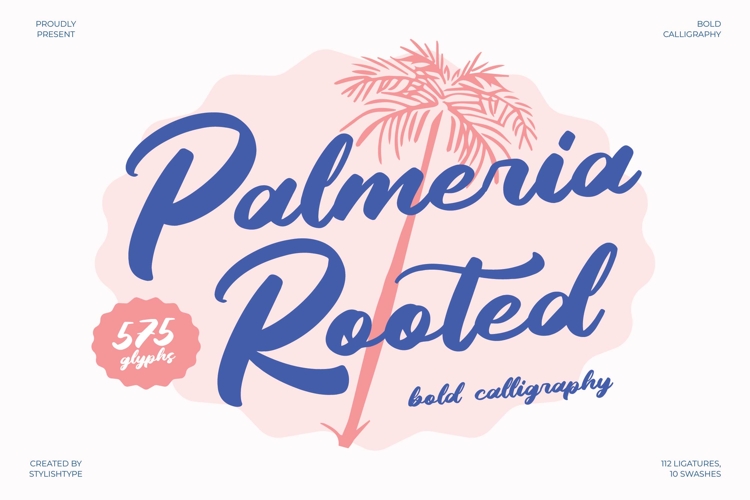
Palmeria Rooted - Bold Calligraphy Font
Palmeria Rooted - Bold Calligraphy Font , from Letterena, is a Luxury Script font, suitable for any projects such as: logos, branding projects, homeware designs, product packaging, mugs, quotes, posters, shopping bags, t-shirts, book covers, name card, invitation cards, greeting cards, label, photography, watermark, special events, and all your other luxury and beautiful projects that need a Luxury Script taste.
112 Ligature 10 Alternate & Swashes